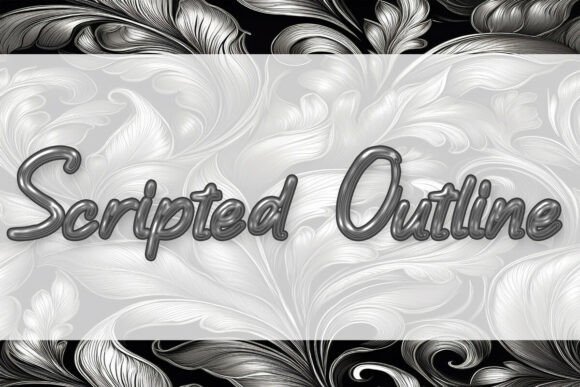
Unlocking the Art of Design with Scripted Outline Font
Remember that moment when you stumbled upon the perfect font to elevate your creative project? For designers, it’s a moment of pure bliss, and it can make all the difference in bringing your vision to life. One such gem that can take your designs to the next level is the Scripted Outline Font. This beautifully crafted font is a game-changer for creatives who want to add a touch of high-quality elegance to their work.
With its outlined aesthetics and refined style, Scripted Outline Font is a versatile design resource that’s perfect for a wide range of applications, from modern magazine layouts to SVG files. Whether you’re working on a free download project or crafting a stunning poster, this font is sure to impress. Plus, its transparent background makes it easy to integrate into any design, giving you endless possibilities to explore.
Key Features of Scripted Outline Font
- High-quality, intricate design ideal for creative projects, including invitations, posters, and more.
- The font features a transparent background, allowing for seamless integration into any design.
- Its unique, hand-drawn style makes it an excellent choice for designers looking to add a touch of elegance and sophistication to their work.
Honest Review: Scripted Outline Font
I recently had the chance to work with the Scripted Outline Font for a creative project and I must say it’s been a game-changer. This font is a high quality design resource that’s perfect for adding a touch of elegance to your work.
- What works well: ✨ The Scripted Outline Font is incredibly versatile and can be used for a variety of projects, from wedding invitations to menus. Its transparent background makes it easy to use on top of images or other graphics.
One of the things that really stood out to me about the Scripted Outline Font is its unique style. It’s perfect for adding a touch of whimsy and personality to your work.
One limitation of the font is that it can be a bit tricky to read in certain font sizes. If you’re planning to use it for large blocks of text, you may want to stick to a smaller size.
Overall, I’m really impressed with the Scripted Outline Font. It’s a great design resource that’s perfect for creative projects. With its high quality design and transparent background, it’s a must-have for any designer.
To get the most out of the Scripted Outline Font, use it in conjunction with other design elements, such as images and graphics. You can also experiment with different font sizes and colors to create unique and eye-catching designs.
The Scripted Outline Font is commonly used in a variety of creative projects, including wedding invitations, birthday party decorations, and marketing materials. Its high-quality design and transparent background make it an excellent choice for designers and artists looking to create professional-looking designs.